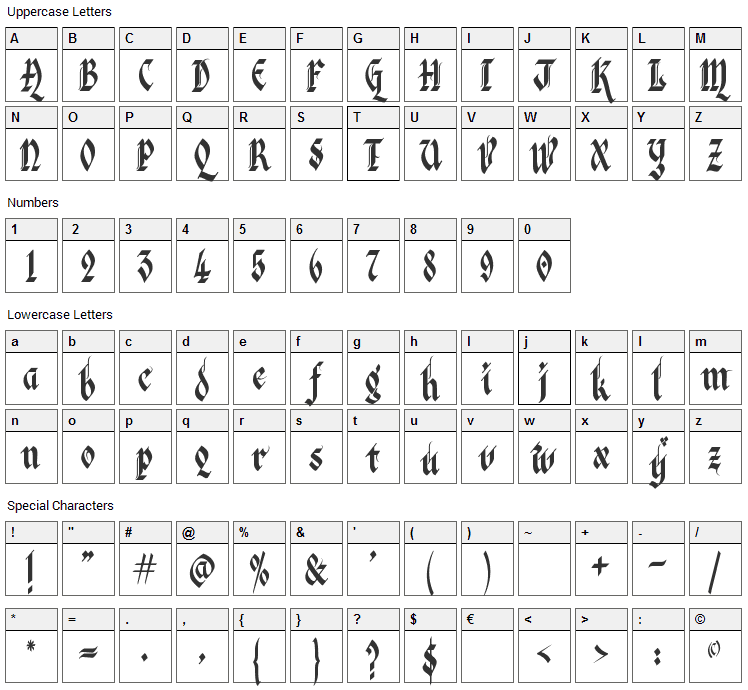
Kingthings Italique Font
Font Name:Kingthings Italique
Developer:Kingthings
Category:Gothic > Medieval
Is based again on letterforms that I learned at school - and because? I like spiky! I wanted to do this one just for me as I like the spiky look of it when set as solid text. This font can be used with the flourishes set.
• Designer:Kevin King
• Description:Calligraphic font